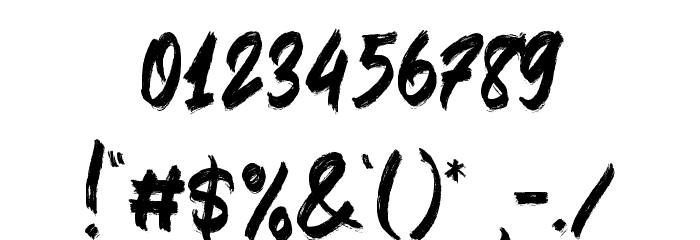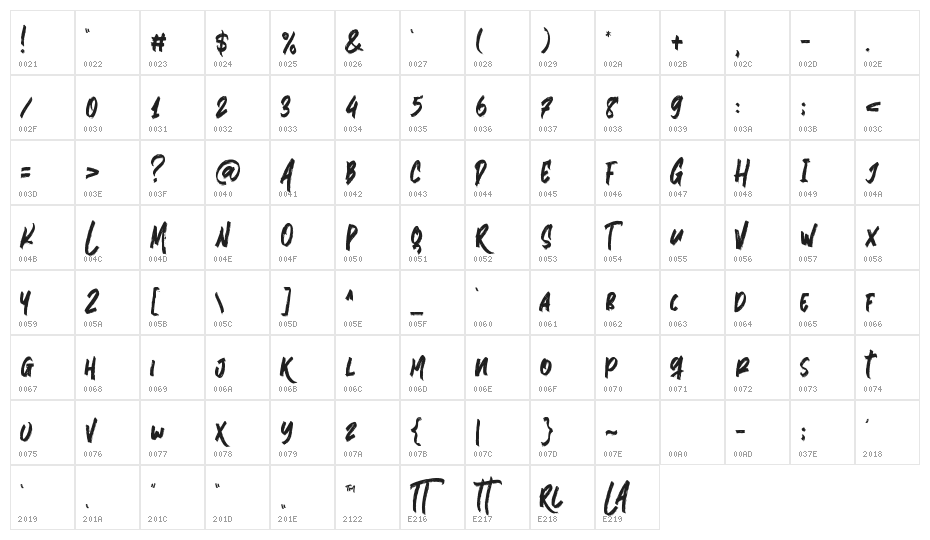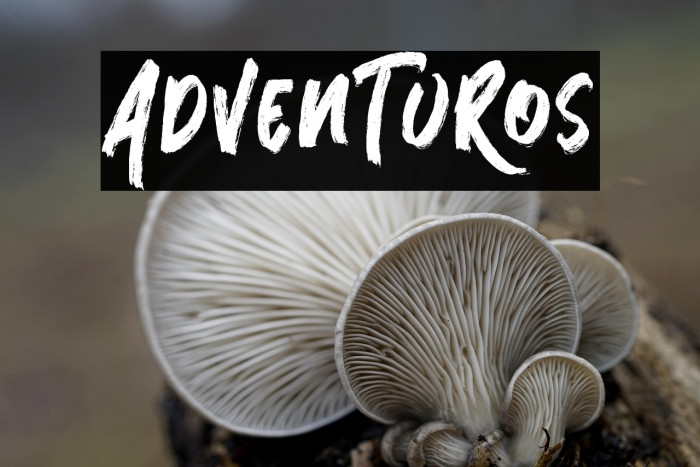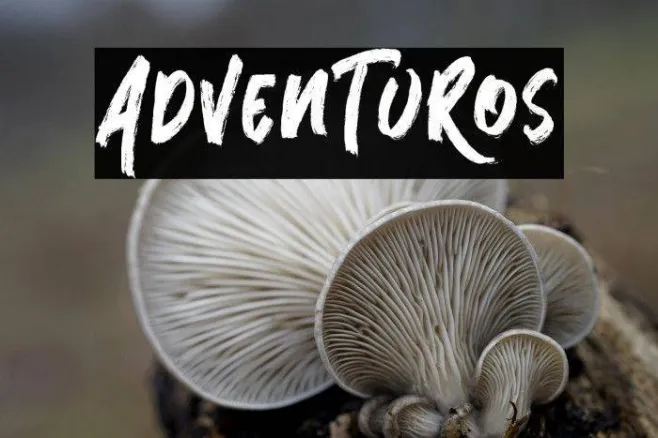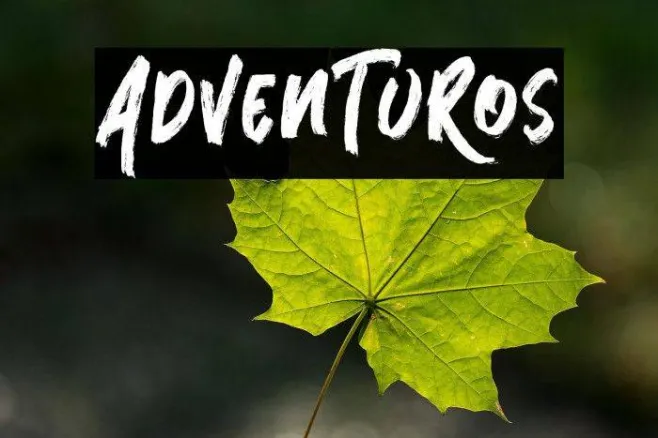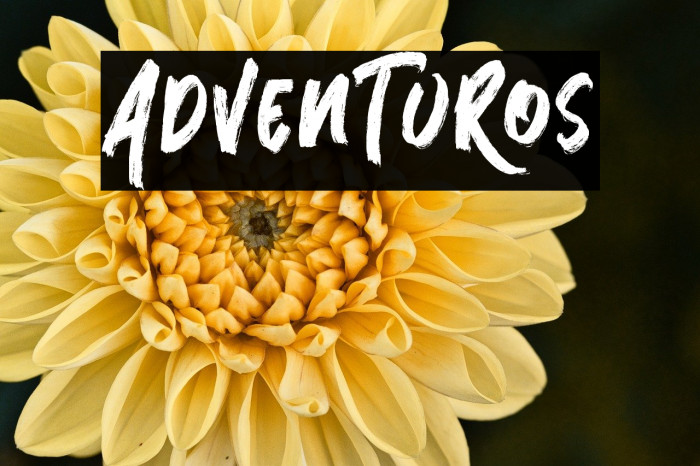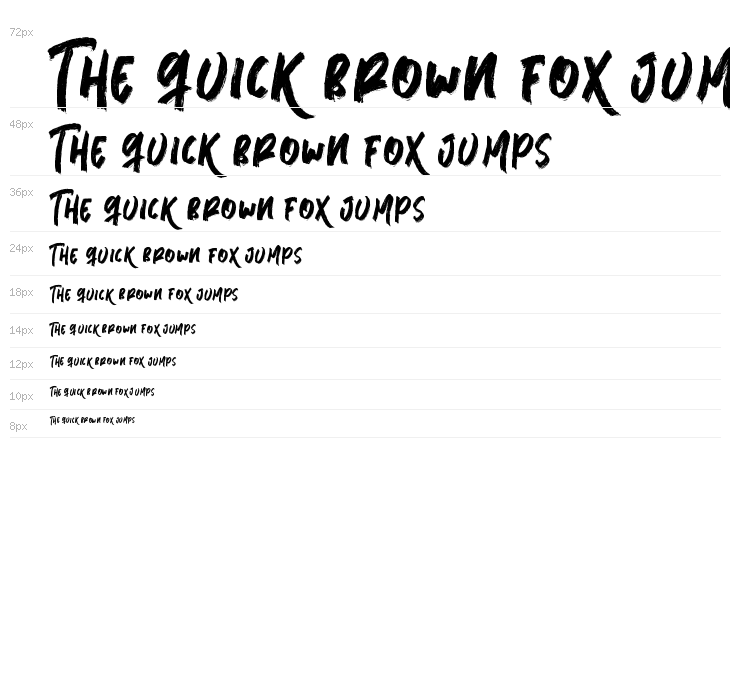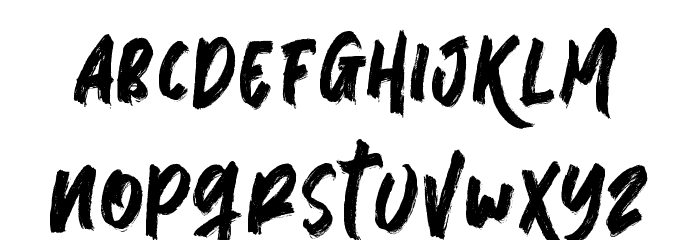
AdvenTuRos Font
AdvenTuRos Description
This font exudes a bold and adventurous spirit, characterized by its brush-like strokes and dynamic, energetic appearance. Each letter is crafted with a sense of movement, giving it a hand-painted feel that is both raw and expressive. The uppercase and lowercase letters maintain a consistent style, with slightly irregular edges that add to its organic charm. Numbers and special characters follow the same artistic approach, ensuring a cohesive look across all text. The font's unique style makes it ideal for projects that require a touch of creativity and boldness.
Overall StyleModern, Artistic
Proposed ProjectsIdeal for branding, posters, adventure-themed designs, and creative projects requiring a bold statement.